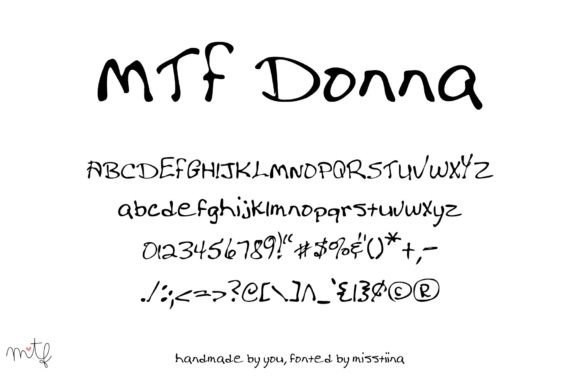
Discover the Charm of Donna Font: Elevate Your Designs with a Personal Touch
In the world of typography, fonts play a crucial role in conveying the tone and personality of a brand or design. For those seeking a unique and personal touch, the Donna Font stands out as an exceptional choice. This beautiful handwritten font is designed to add a touch of elegance and warmth to any project, making it perfect for designers and crafters looking to create something truly special.
What Makes Donna Font So Special?
Donna Font is a neat and beautiful handwritten font that boasts original characters, each carefully crafted to bring a sense of personality and charm to your designs. Its versatility makes it an ideal choice for a wide range of projects, including branding, business cards, logos, trademarks, name tags, and more. Whether you’re working on a corporate identity or a personal craft project, Donna Font is sure to make your work stand out.
Key Features of Donna Font
• Handwritten Elegance: Donna Font offers a smooth, flowing script that mimics the elegance of handwritten text, providing a personal and approachable feel to your designs.
• Original Characters: Each character in Donna Font is uniquely designed, ensuring that your text will have a distinct and personalized look that sets it apart from more traditional fonts.
• Versatility: From professional branding projects to personal craft endeavors, Donna Font’s adaptability makes it suitable for a wide array of applications.
• Easy to Read: Despite its elegant and cursive nature, Donna Font remains highly legible, making it perfect for both headings and body text.
Using Donna Font in Your Projects
• Branding and Logos: Create a memorable brand identity with custom logos, letterheads, and business cards that showcase your personality.
• Stationery and Invitations: Add a touch of elegance to your wedding invitations, greeting cards, and personal stationery.
• Digital and Print Media: Use Donna Font in your digital content, such as blog headers, social media graphics, and newsletters, or in print materials like brochures and posters.
• Crafting and DIY Projects: From scrapbooking to crafting personalized gifts, Donna Font can add a unique and personalized element to your handmade projects.
Tips for Working with Donna Font
Font Name Donna Font
Author Miss Tiina
Donna Font is more than just a font; it’s a tool for designers and crafters to infuse their projects with a personal touch. Its elegant, handwritten appearance and versatile nature make it an excellent choice for a myriad of applications. Whether you’re looking to elevate your professional branding or add a unique element to your craft projects, Donna Font is sure to inspire and enhance your creative endeavors.